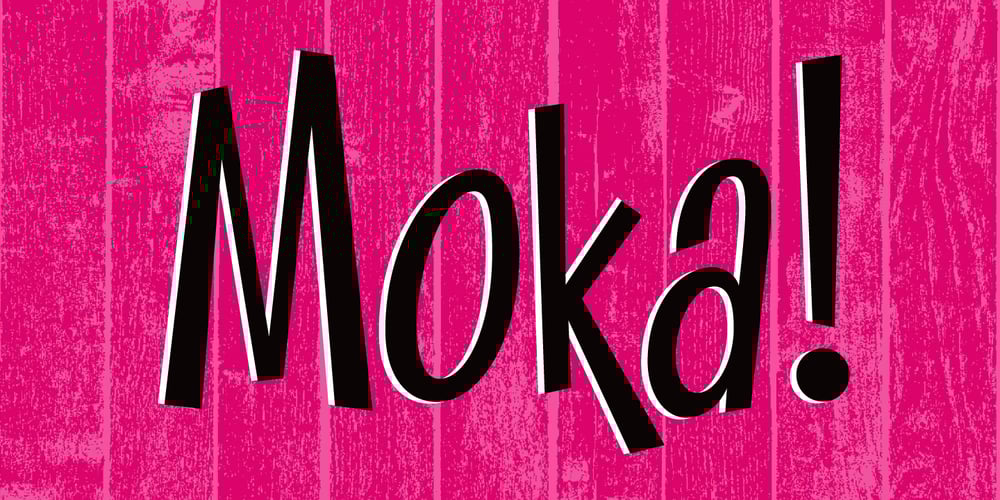
Moka Font Family was designed by Allen Mercer and published by Alive Fonts. Moka contains 1 styles and family package options. Introducing Moka by Alive Fonts. Moka bounces with playfulness with just the right amount of unique character to brighten any design. Break out of the confines of sterile generic gothic fonts and bring life to your project with Moka today!